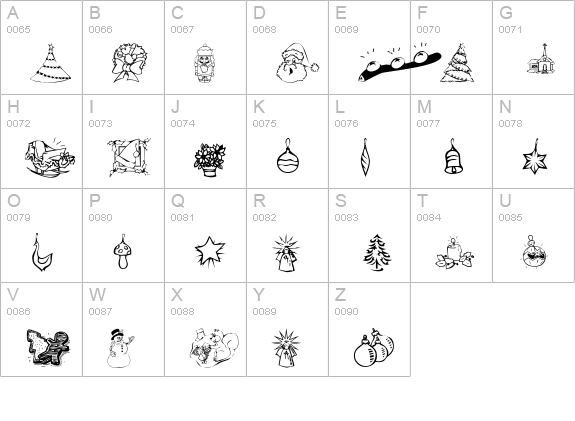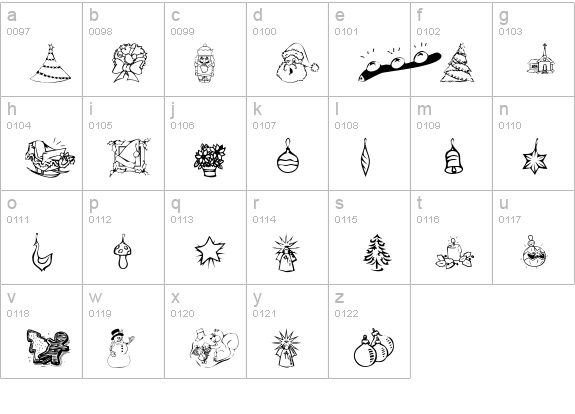
KR Christmas Dings 2004 Two Font Details
KR Christmas Dings 2004 Two font is a festive and charming typeface perfect for adding a touch of holiday spirit to your projects. This font features a variety of Christmas-themed dingbats, including snowflakes, presents, ornaments, and more, making it ideal for creating eye-catching designs for the holiday season. Whether you are working on greeting cards, party invitations, or decorations, this font is sure to bring joy and cheer to your creations. Best of all, KR Christmas Dings 2004 Two font is available for free download at FontsMarket.com. Simply visit the website to get your hands on this delightful font and start spreading the Christmas magic in your designs today!